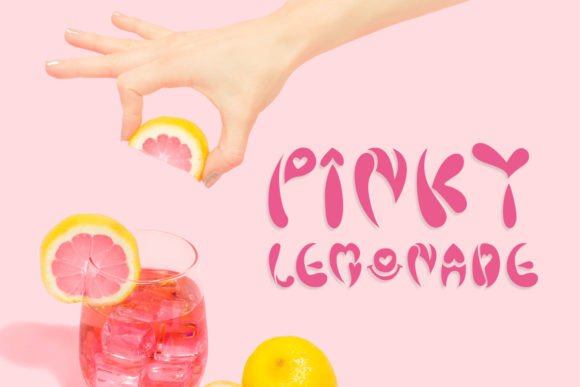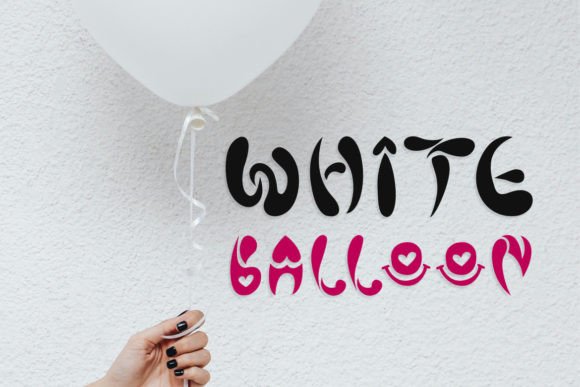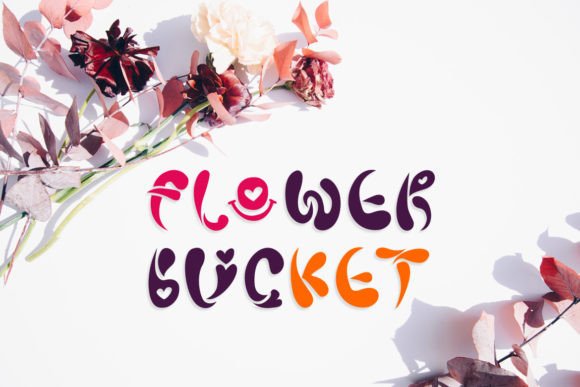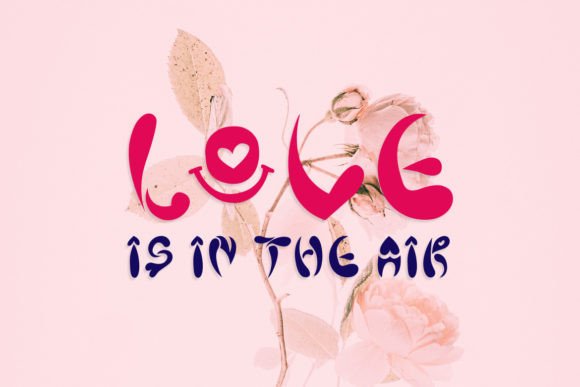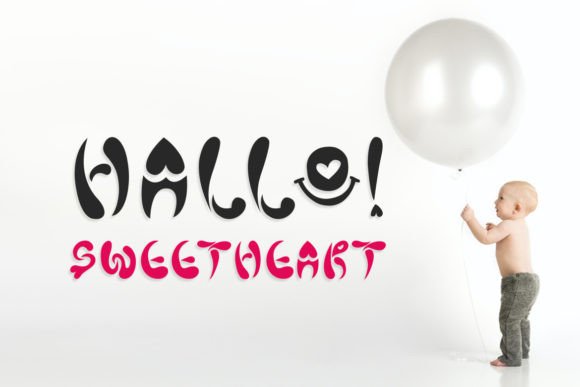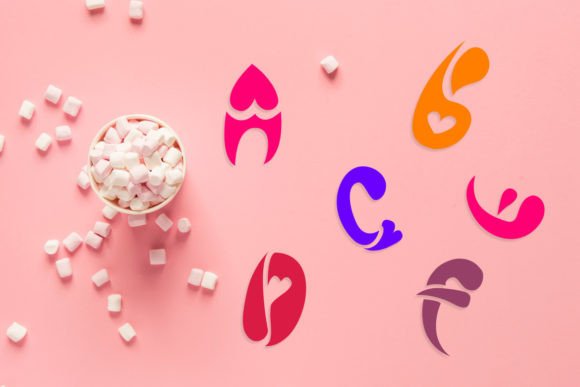
Introduction to Naku Font
Remember that moment when you’re brainstorming a creative project, and the perfect font slips right through your fingers? It’s frustrating, but with the right design resource, everything falls into place. For designers, finding the perfect font can be a game-changer, elevating a project from good to great. That’s where Naku Font comes in – a fun and playful display font designed to bring your ideas to life.
| 👤 Author | Eurus 99 |
Naku Font is more than just a font; it’s a design solution waiting to be unleashed. With its transparent background and high-quality design, it’s the perfect addition to any creative project. And the best part? It’s available for a free download, making it an accessible and valuable resource for designers of all levels.
Naku Font
- High-quality design resource for creative projects, ideal for digital art and graphic design.
- Unique, hand-drawn style with intricate details and subtle texture, adding a touch of elegance to any design.
- Perfect for use in logos, typography, and other design elements where a distinctive, high-quality font is desired.
Honest Review: Naku Font
As a designer, I’ve had the chance to work with various fonts, but the Naku Font has caught my attention. I was excited to see how it would perform in my creative project.
Here are some of the features that worked well for me:
- ✨ Unique and modern design: The Naku Font has a sleek and modern look that’s perfect for contemporary designs.
- ✨ High-quality glyphs: The font includes a wide range of glyphs, making it suitable for various languages.
- ⚠️ Limited font styles: The Naku Font only comes in a few font styles, which might limit its versatility.
- ⚠️ No transparent background: Unfortunately, the font doesn’t support transparent backgrounds, which can be a problem for designers who need this feature.
Overall, I’m impressed with the Naku Font’s design and quality. While it has some limitations, it’s still a valuable resource for designers working on creative projects. I’d definitely consider using it again in the future.
Naku Font
The Naku Font is a versatile and stylish design resource that can elevate your creative project. With a transparent background, this high-quality font is perfect for designers looking to add a touch of elegance to their work.
Tips for Getting the Most Out of Naku Font
To get the most out of the Naku Font, try using it in combination with other design elements, such as bold colors and creative graphics. You can also experiment with different font sizes and styles to create a unique look.
The Naku Font is perfect for a variety of design projects, including:
- Social media graphics and advertising